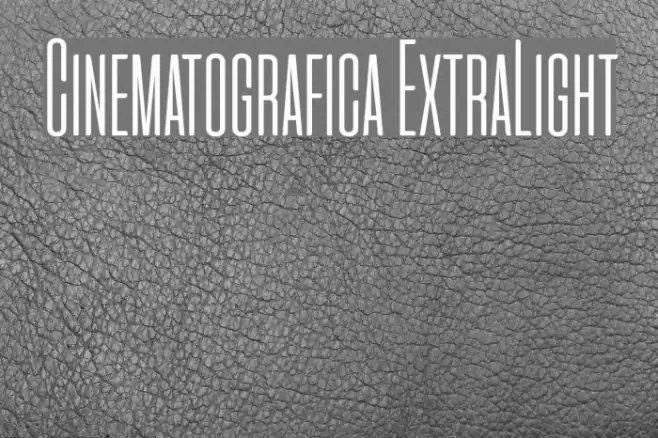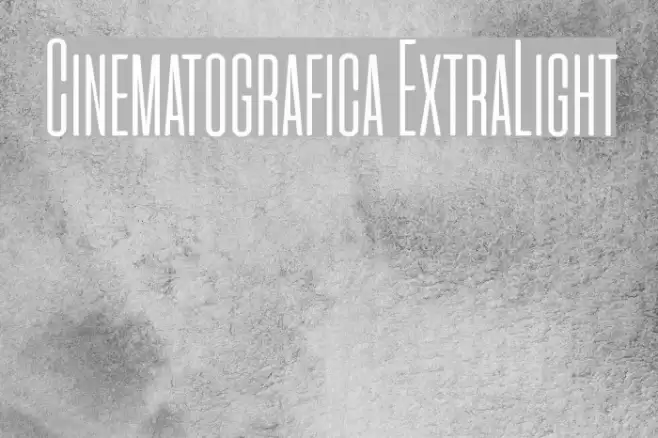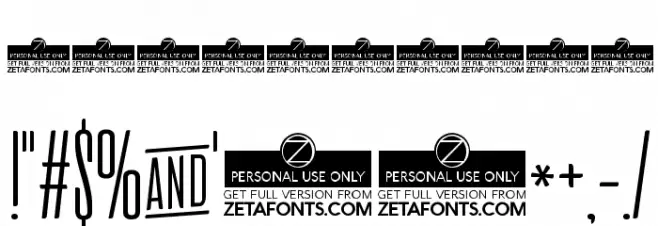
Cinematografica ExtraLight Font
Cinematografica ExtraLight Description
This font features an elegant and elongated design with a distinctively narrow structure. The characters are tall and slim, offering a sophisticated and modern appearance. The uppercase letters are particularly striking, with clean lines and a uniform height that creates a cohesive look. The lowercase letters maintain the same narrow aesthetic, providing a seamless transition between cases. The numbers and special characters are designed to match the overall style, ensuring consistency throughout. This font's extra light weight adds to its refined and delicate feel, making it suitable for projects that require a touch of elegance and modernity.
A tall, narrow, and elegant font with an extra light weight, perfect for modern designs from Uncategorized fonts.
- Proposed Projects: Ideal for fashion magazines, luxury branding, high-end product packaging, and minimalist design projects.